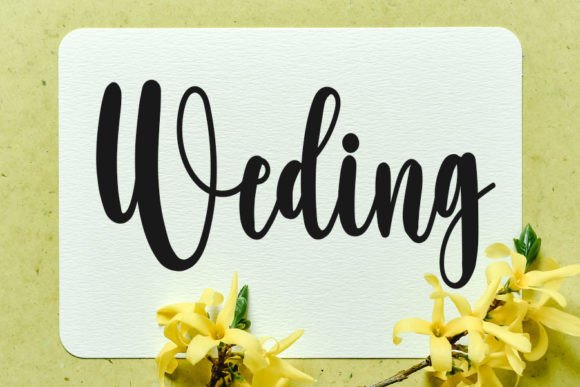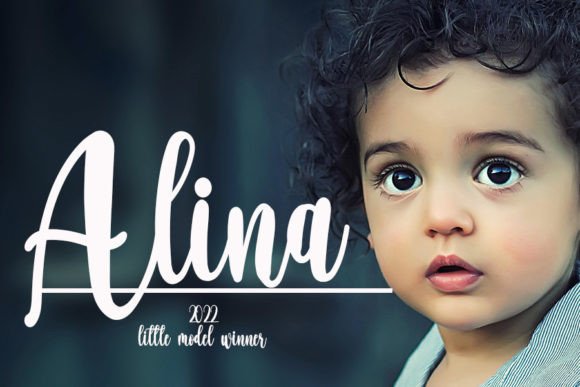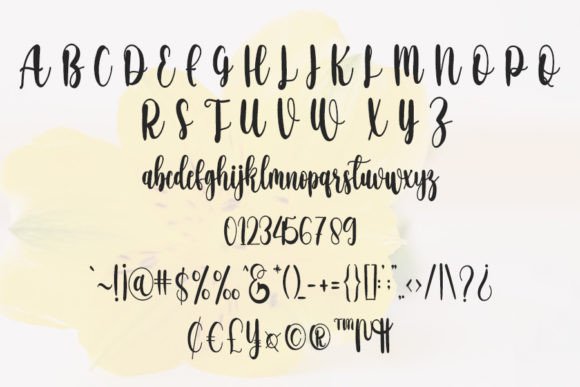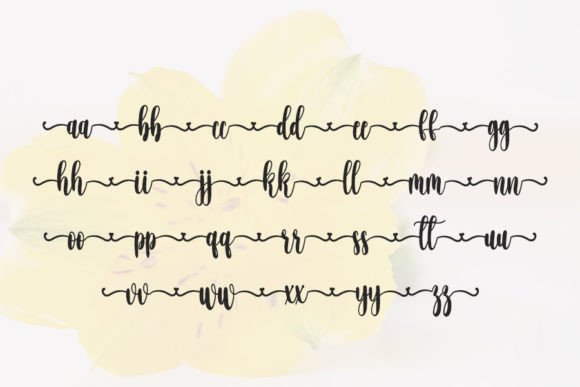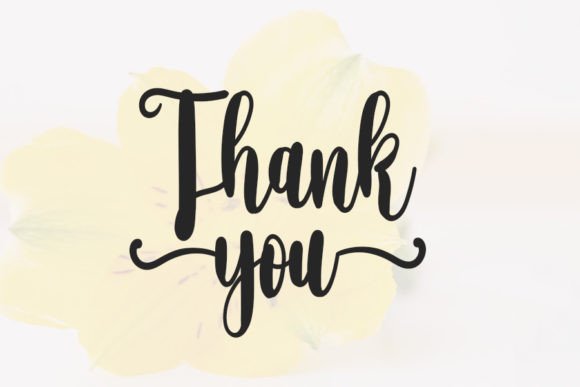
Introducing Anime Font: The Perfect Blend of Classy and Contemporary
Are you a designer, crafter, or enthusiast looking for a unique and captivating font to elevate your creative projects? Look no further than Anime Font, a friendly handwritten font that is carefully designed to become a true favorite. With its classy calligraphic influences and contemporary feel, Anime Font is the perfect choice for those who want to add a touch of elegance and freshness to their work.
What is Anime Font?
Anime Font is a beautifully crafted handwritten font that is inspired by the world of anime and manga. Its creator has carefully designed each letter to reflect the perfect balance between traditional calligraphy and modern typography. The result is a font that is both stylish and approachable, making it suitable for a wide range of applications, from digital designs to print materials.
Key Features of Anime Font
- Classy Calligraphic Influences: Anime Font boasts elegant and refined lettering that is reminiscent of traditional calligraphy. Each letter is carefully crafted to convey a sense of sophistication and luxury.
- Contemporary and Fresh: Despite its classic influences, Anime Font feels modern and fresh. Its clean lines, subtle curves, and balanced spacing make it perfect for designs that require a touch of sophistication and style.
- Handwritten Charm: Anime Font has a distinctly handwritten feel that sets it apart from more formal fonts. Its imperfections and quirks add a touch of personality and warmth to any design.
- Versatile: Anime Font is incredibly versatile and can be used for a wide range of applications, from branding and advertising to packaging and stationery.
Use Cases for Anime Font
Anime Font is an incredibly versatile font that can be used in a variety of contexts. Here are some use cases to get you started:
- Branding and Logo Design: Use Anime Font to create a unique and memorable logo that reflects your brand’s personality and values.
- Digital Designs: Anime Font is perfect for digital designs, including social media graphics, blog posts, and website headers.
- Print Materials: Use Anime Font for print materials such as business cards, brochures, and flyers.
- Crafting and Scrapbooking: Anime Font is a great choice for crafters and scrapbookers who want to add a personal touch to their projects.
Tips for Using Anime Font
To get the most out of Anime Font, here are some tips to keep in mind:
- Pair it with Other Fonts: Anime Font pairs well with other fonts, including sans-serif and serif fonts. Experiment with different combinations to find the perfect match.
- Experiment with Colors: Anime Font looks great in a variety of colors, from bold and bright to soft and pastel.
- Play with Size: Anime Font can be used at a variety of sizes, from large headings to small body text.